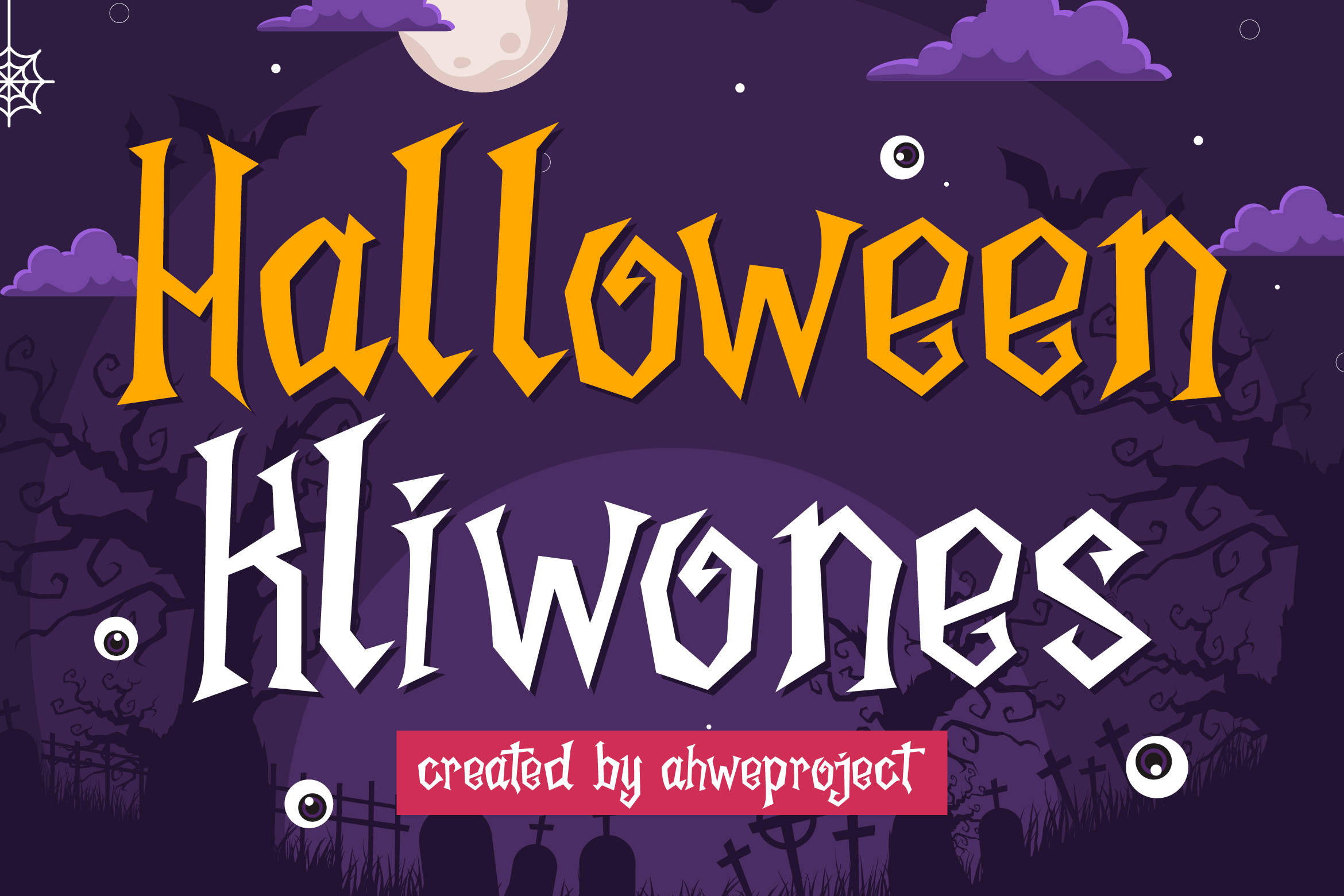
Halloween Kliwones - Display Horror Font
About Halloween Kliwones - Display Horror
Halloween Kliwones is a spooky display font with fun letters. Masterfully designed to become a true favorite, this font has the potential to bring each of your creative ideas to the highest level! Add it to your Halloween crafts, horror movie posters, t-shirts, and anything else that requires a spectacular look.